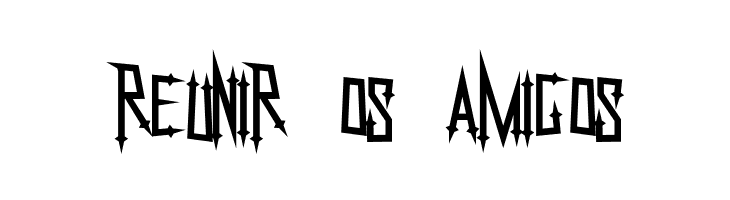
KathicaScriptDEMO-Regular Font
- Font: KathicaScriptDEMO-Regular
( Fonts by Sinister Visions - Chad Savage - www.sinisterfonts.com )
A bold, gothic-inspired font with sharp, angular edges and dramatic flair.